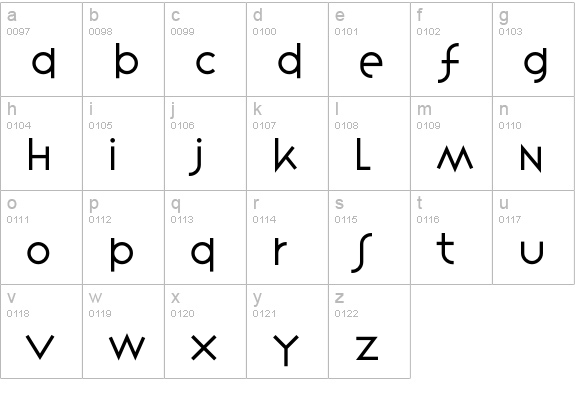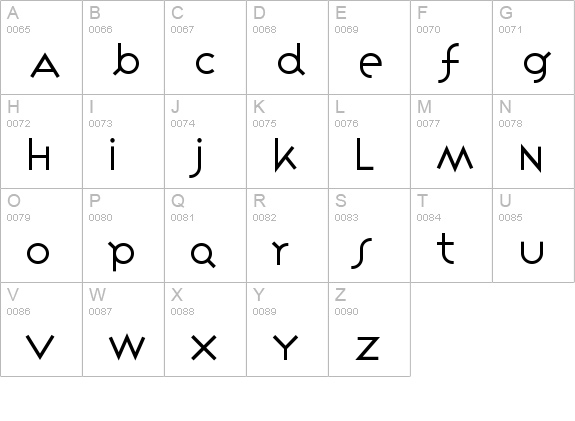
VariexLightA Font Details
VariexLightA is a stunningly elegant font that effortlessly captures attention and adds a touch of sophistication to any design project. Its delicate and graceful letterforms exude a sense of refinement, making it perfect for everything from elegant wedding invitations to high-end branding. This font is incredibly versatile, seamlessly blending into various design styles and effortlessly adapting to any creative vision. Whether used for print or digital media, VariexLightA is sure to make a lasting impression. One of the most remarkable aspects of VariexLightA is that it is free. Yes, you read that right! This exceptional font is freely available to download at FontsMarket.com. This means that designers, creatives, and enthusiasts alike can access this beautiful typeface without any cost or restrictions. The quality and attention to detail in VariexLightA are unparalleled. Each letter is meticulously crafted, with perfect curves and clean lines that enhance legibility and readability. The font's light weight adds an airy and delicate feel, creating an overall sense of elegance and sophistication. VariexLightA offers a wide range of glyphs, including uppercase and lowercase letters, numbers, punctuation marks, and special characters. This extensive character set ensures that designers have all the tools they need to create unique and stunning designs. Whether you are designing a logo, a website, or a poster, VariexLightA will elevate your project to new heights. Its timeless beauty and versatility make it a go-to choice for designers seeking to make a statement. Don't miss out on the opportunity to download this exceptional font for free at FontsMarket.com. Get ready to transform your designs with VariexLightA and experience the power of elegant typography.